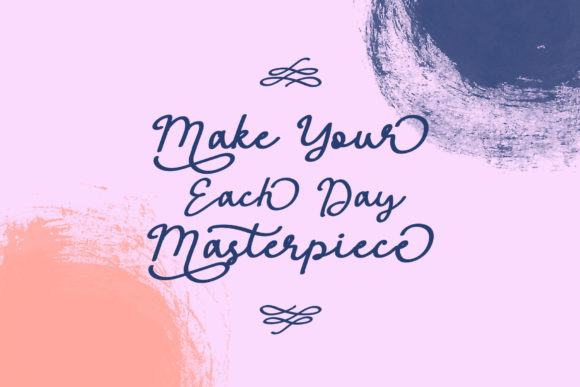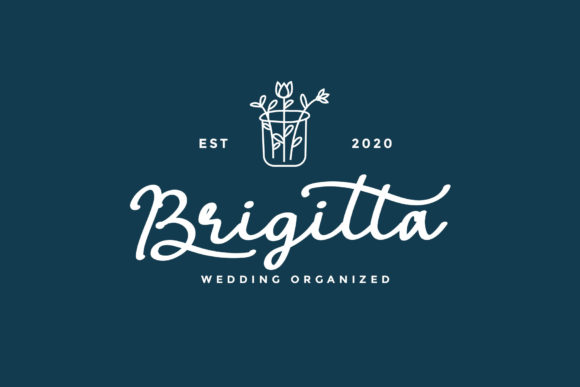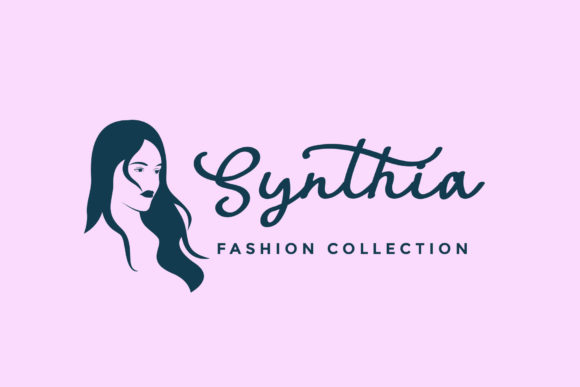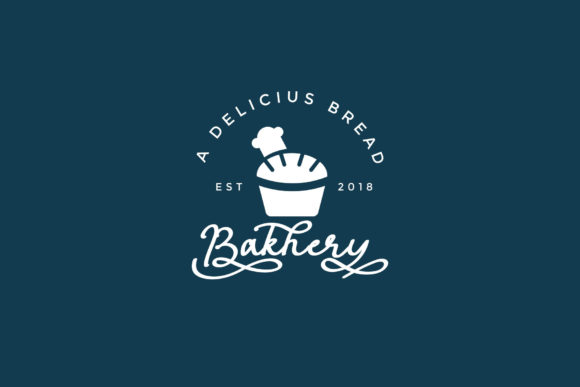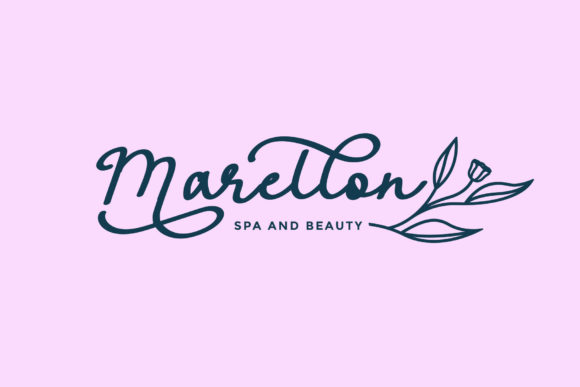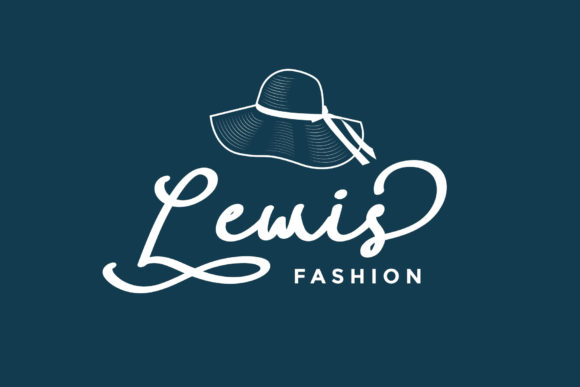
Introduction to Antha Font
Antha is a flowing handwritten font, described by an elegant touch, perfect for your favorite projects.
Fall in love with its incredibly distinct and timeless style and use it to create spectacular designs This font is PUA encoded which means you can access all of the glyphs and swashes with ease.